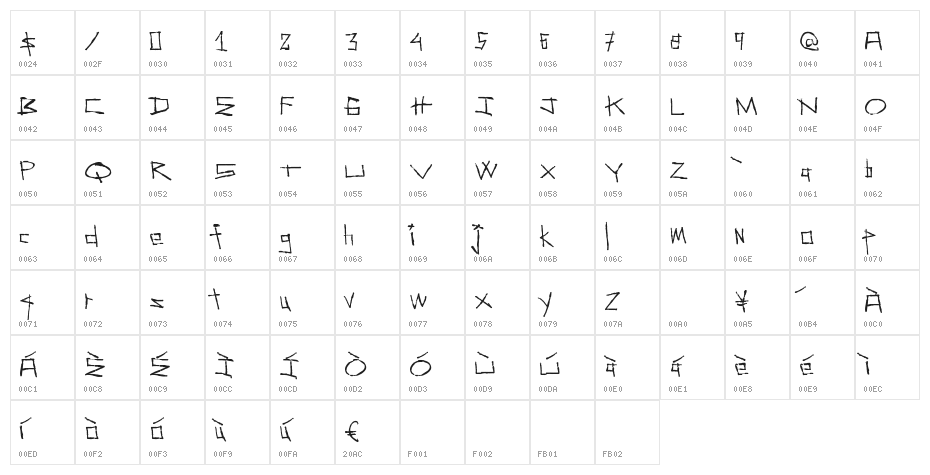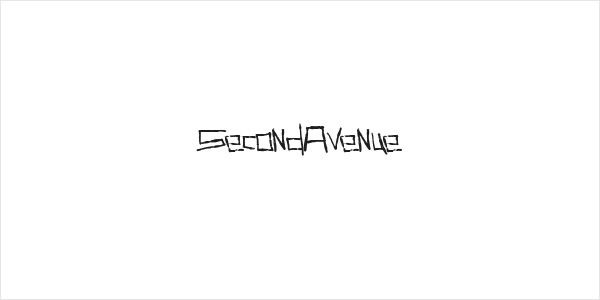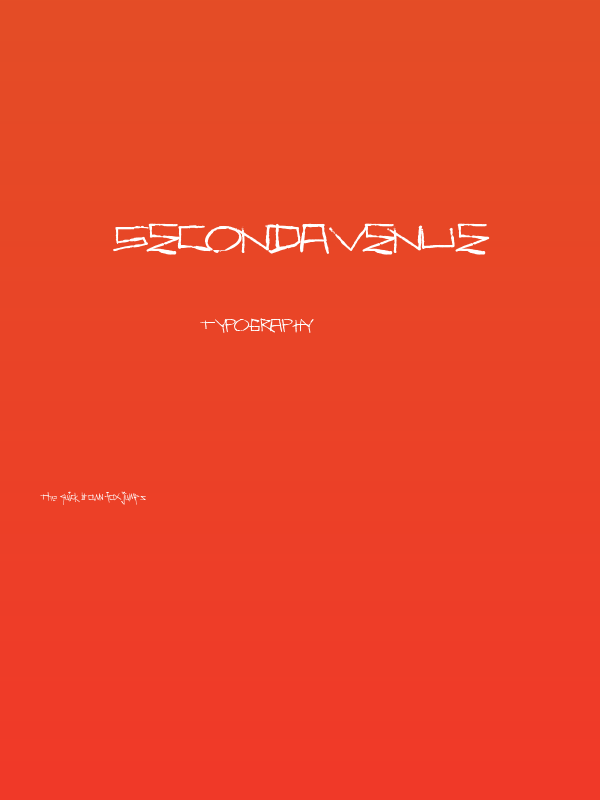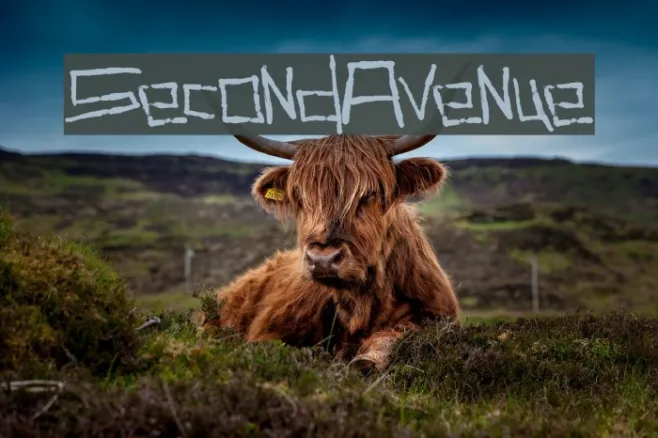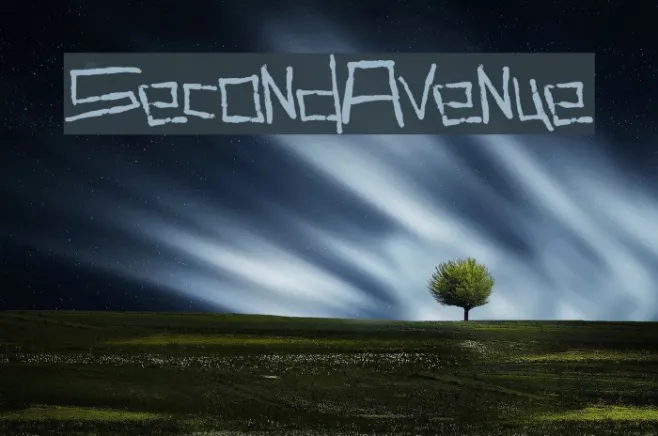
SecondAvenue Font
SecondAvenue Description
This font features a highly stylized, graffiti-inspired design with jagged, angular lines that give it a raw, edgy appearance. The characters are irregular and dynamic, resembling hand-drawn sketches with a rebellious flair. The uppercase and lowercase letters maintain a consistent aesthetic, with sharp edges and varying line thicknesses that create a sense of movement and energy. The numerals and special characters follow the same design principles, ensuring a cohesive look across all glyphs. This font's unique style makes it stand out, offering a bold statement in any design project.
| Overall Style | Modern, Urban |
| Use Case | Logos, Posters, Album Covers |
| Proposed Projects | Ideal for street art designs, music album covers, urban-themed posters, and edgy branding projects. |